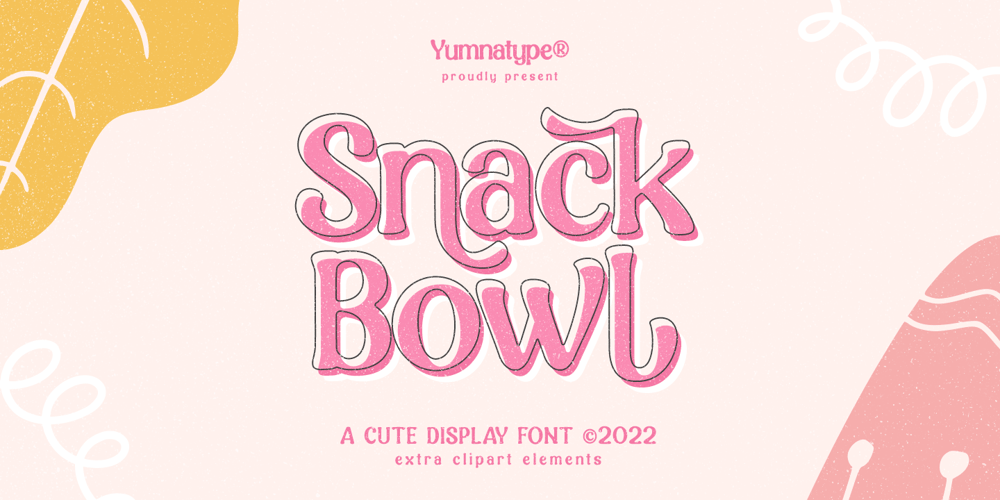
Snack Bowl Font Family was designed by Donis Miftahudin and published by Yumna Type. Snack Bowl contains 2 styles and family package options. Is it magic? Snack Bowl really know how to maximize your beautiful design.Snack Bowl is a fun and cute display font that comes with solid weight. It is easy to read and will look great in a variety of header and title sizes. You also get 15 illustrations as special extra that you can use as you wish. Features: Ligatures Stylistic Sets Swashes Multilingual Supports Uppercase and lowercase PUA Encoded Numerals and Punctuation This font would looks great on your branding, logos, social media quotes, stickers, posters, wall art, merchandise, social media, and many more. Get more inspiration about how to use it by seeing the font preview.Thank you for purchasing our fonts. If you have any further questions, don’t hesitate to contact us. Happy Designing.